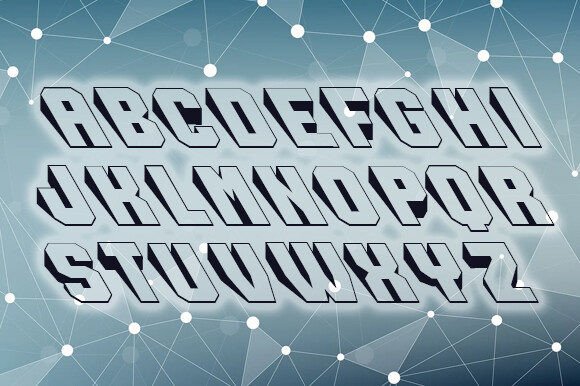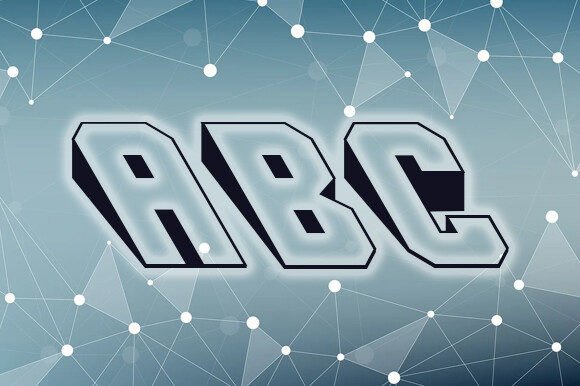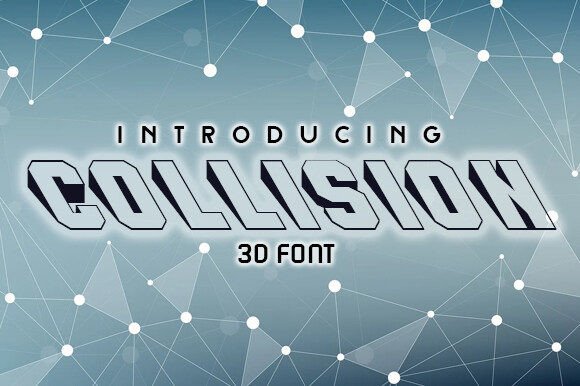
Introducing Collision Font: The Ultimate 3D Retro Typeface for Your Designs
Are you tired of using the same old fonts in your designs? Look no further! Collision Font is an awesome 3D retro typeface that will add a touch of nostalgia and style to any of your creations. Whether you’re a designer, crafty DIY enthusiast, or simply someone who loves to create, this font is sure to become a favorite in your collection.
What is Collision Font?
Collision Font is a unique and eye-catching 3D retro typeface that is perfect for making a statement. Its bold, chunky design is reminiscent of classic video games and sci-fi movies from the 80s and 90s. The font is versatile and can be used on a wide range of projects, from posters and flyers to t-shirts, mugs, stickers, and more.
Key Features of Collision Font
• 3D Retro Design: Collision Font boasts a bold, 3D design that is sure to grab attention.
• Highly Versatile: Use this font on a variety of projects, from print materials to digital designs.
• Unique and Eye-Catching: Stand out from the crowd with this distinctive and stylish font.
Uses for Collision Font
The possibilities are endless when it comes to using Collision Font. Here are a few ideas to get you started:
• Posters and Flyers: Create eye-catching posters and flyers for events, concerts, or promotions.
• T-Shirts and Apparel: Add a stylish touch to your t-shirts, hoodies, and other apparel.
• Mugs and Water Bottles: Personalize your mugs and water bottles with a unique and fun design.
• Stickers and Decals: Create custom stickers and decals for laptops, cars, or any other surface.
• Digital Designs: Use Collision Font in your digital designs, such as social media graphics, video game art, or website headers.
Why Choose Collision Font?
With so many fonts available, why choose Collision Font? Here are a few reasons:
• Unique Design: Collision Font offers a distinctive and stylish design that will set you apart from the crowd.
• High-Quality: This font is designed with high-quality and clarity in mind, ensuring it looks great on any surface.
Tips for Using Collision Font
Here are a few tips for getting the most out of Collision Font:
• Experiment with Colors: Try out different color combinations to really make your design pop.
• Play with Texture: Add texture to your design to give it an extra layer of depth.
• Mix and Match: Combine Collision Font with other fonts and design elements to create a unique look.
Collision Font is an awesome 3D retro typeface that is sure to become a staple in your design collection. With its bold, chunky design and versatility, it’s perfect for a wide range of projects. Whether you’re a designer, crafty DIY enthusiast, or simply someone who loves to create, Collision Font is a must-have. So why wait? Download Collision Font today and start creating amazing designs!